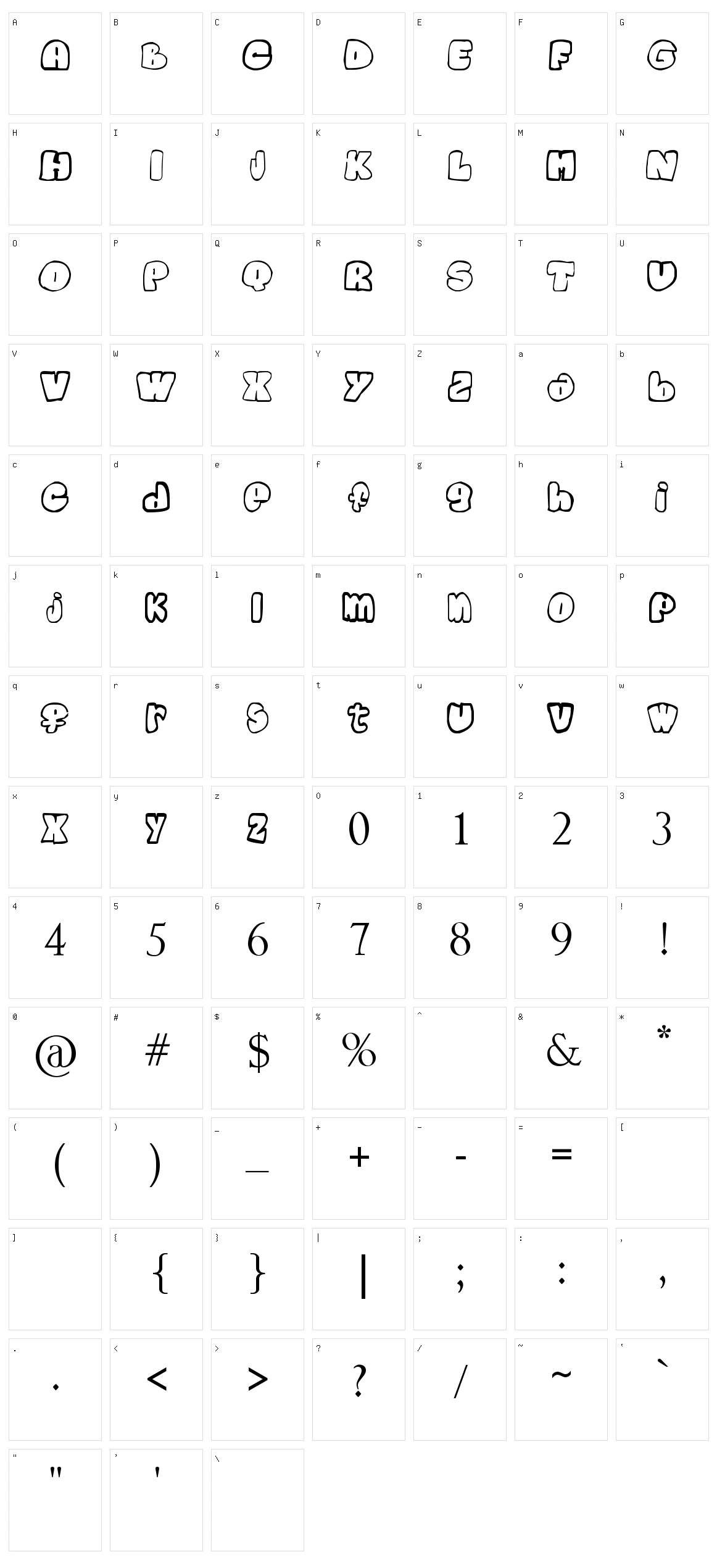
The free font Child is carefully designed by Gustavo Lucero, showcasing a thoughtful balance of creativity and usability and falls under the Cartoon font style. When you download the ZIP file, it contains only 15.77 KB of font files, making it lightweight and quick to download. Please review the license details below to understand permitted usage and distribution rights. If license information is not available, we recommend using this font for personal projects only or contacting the author directly for commercial usage permissions.